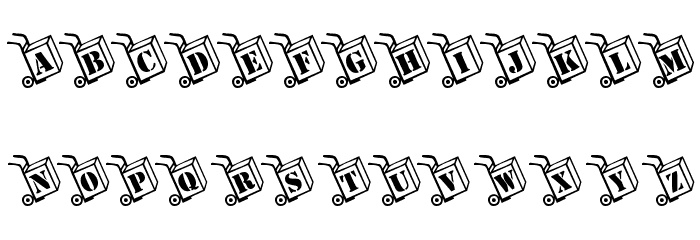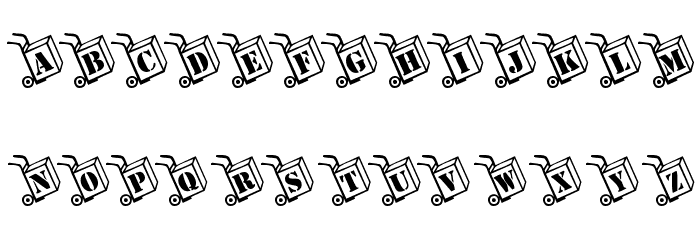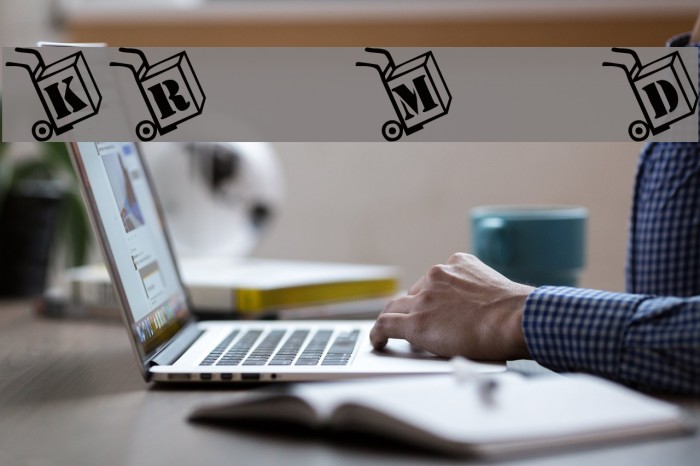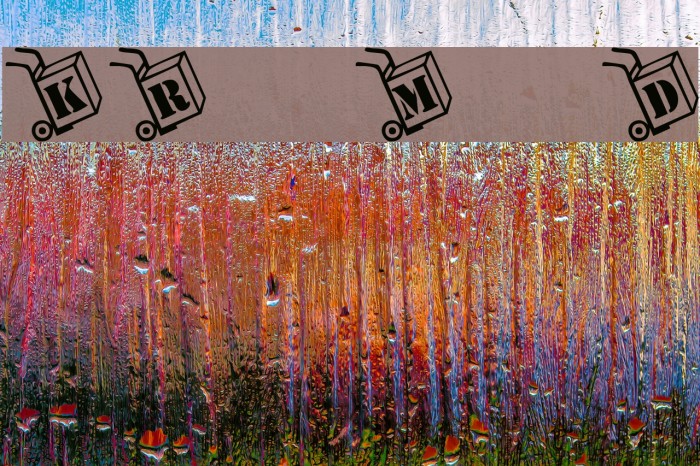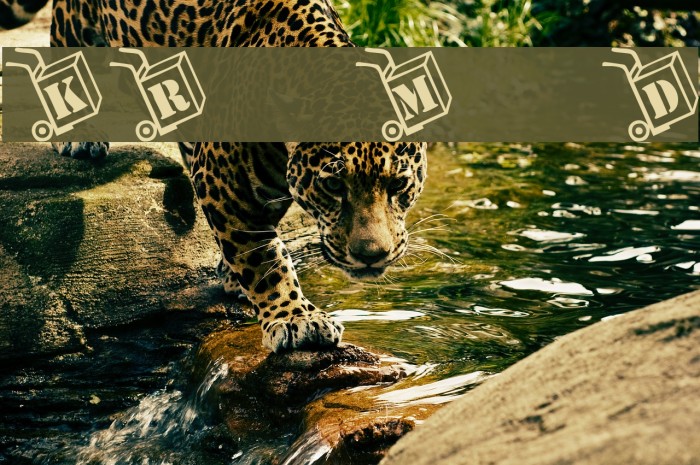
KR Moving Day Font
This playful and whimsical font features each letter encased within a stylized hand truck or dolly, giving the impression of movement and transport. The letters are bold and uppercase, with a slight slant to enhance the dynamic feel. The design is outlined, adding a layer of depth and making each character stand out distinctly. The overall look is both fun and functional, ideal for projects that require a sense of motion or convey themes of moving and logistics.
A playful font with letters inside hand trucks, suggesting movement.
- Proposed Projects: Ideal for moving company logos, playful event invitations, or themed posters related to transport or logistics.
- Use Case: Logos, Posters, Themed Events